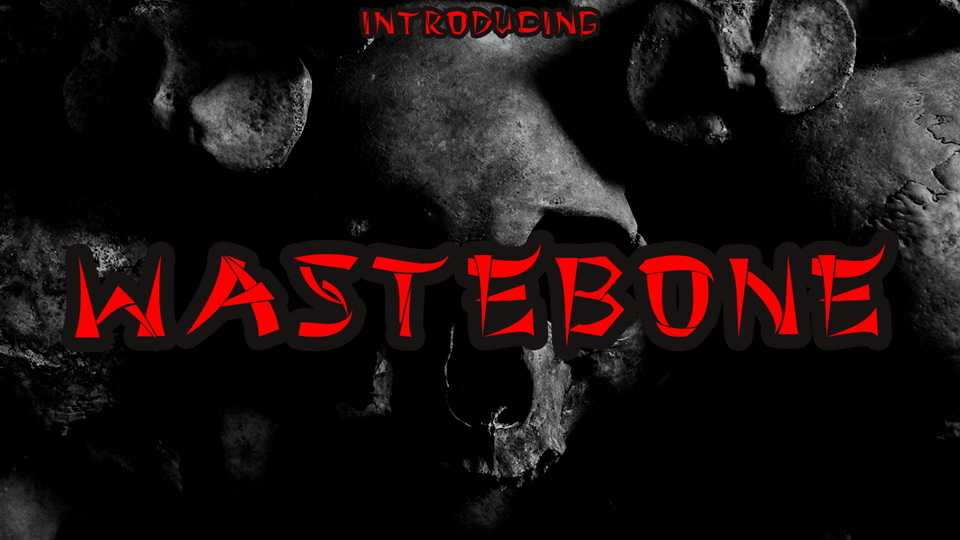
Wastebone Gothic Font › Fontesk – Download Grátis
Download Wastebone font, a creepy, dark looking and uniquely designed display typeface. Add Wastebone fontto any design idea that you wish to highlight.